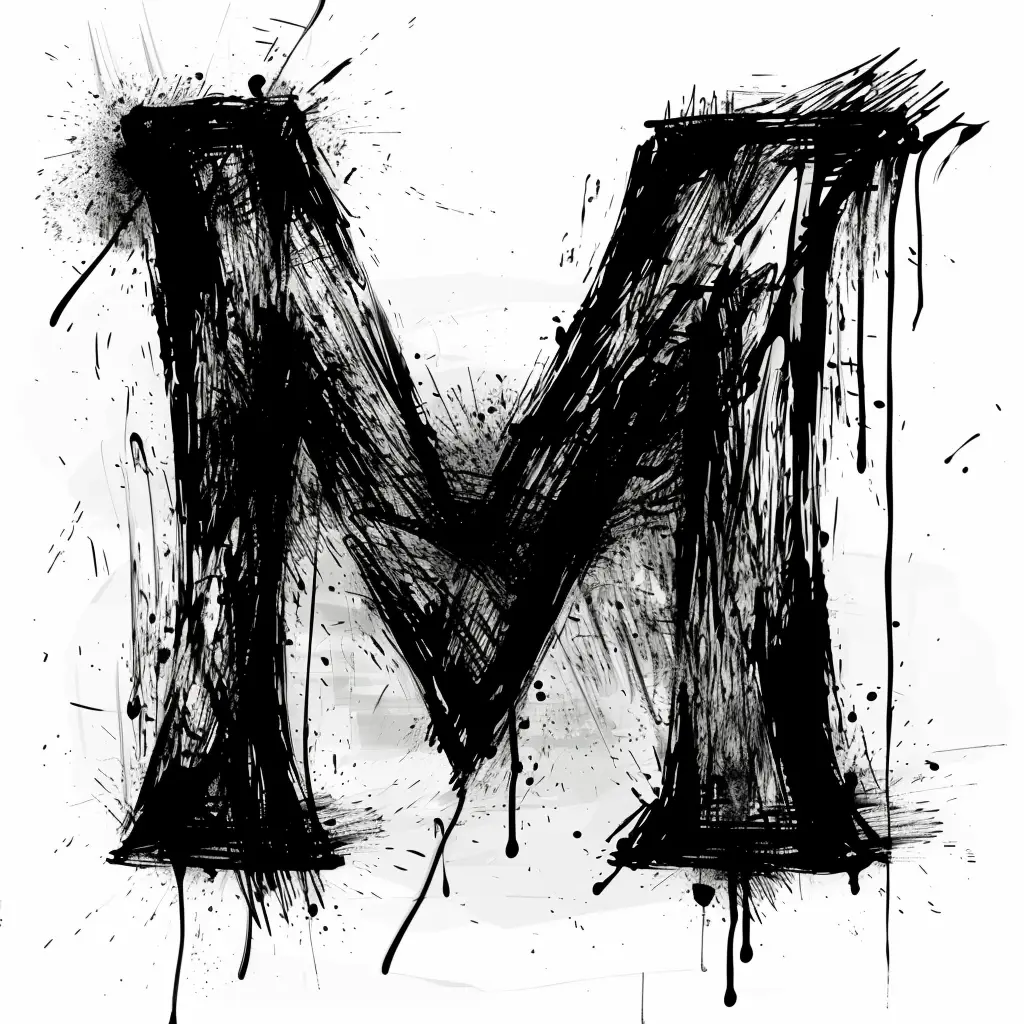
The image features a bold, stylized letter "M" rendered in a rough, expressive black ink style, with splatters, drips, and chaotic brushstrokes creating a dynamic, artistic effect. The monochromatic palette (black on white) emphasizes the textured, hand-drawn aesthetic, while the surrounding ink splatters and drips enhance the raw, energetic visual impact.